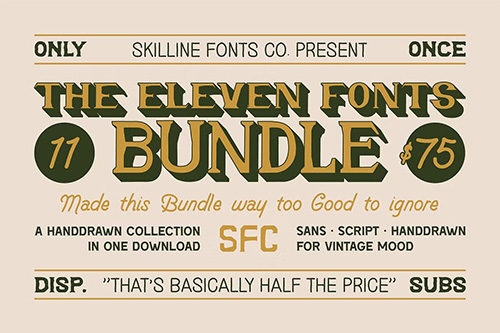
- The Eleven Fonts Bundle is a curated vintage handdrawn typeface collection by Skilline Fonts Co., featuring 11 distinctive fonts in one powerful download. This bundle combines sans serif, script, display, and handdrawn styles crafted for retro branding, signage, editorial headlines, packaging, and bold vintage design. From classic signage-inspired lettering to soft rounded display and expressive scripts, each font delivers personality, warmth, and timeless character. Perfect for designers who want versatility, vintage mood, and strong branding impact in one complete typography pack.